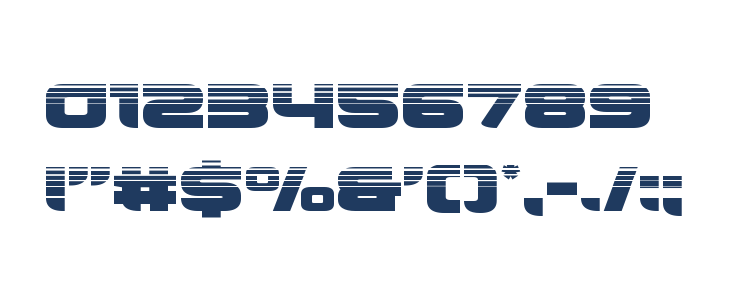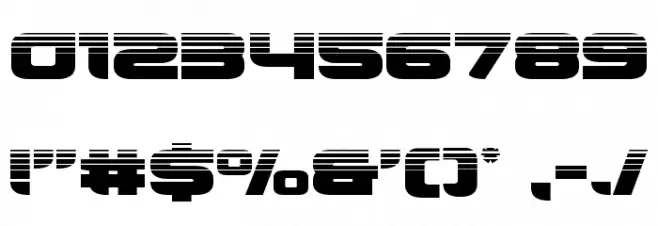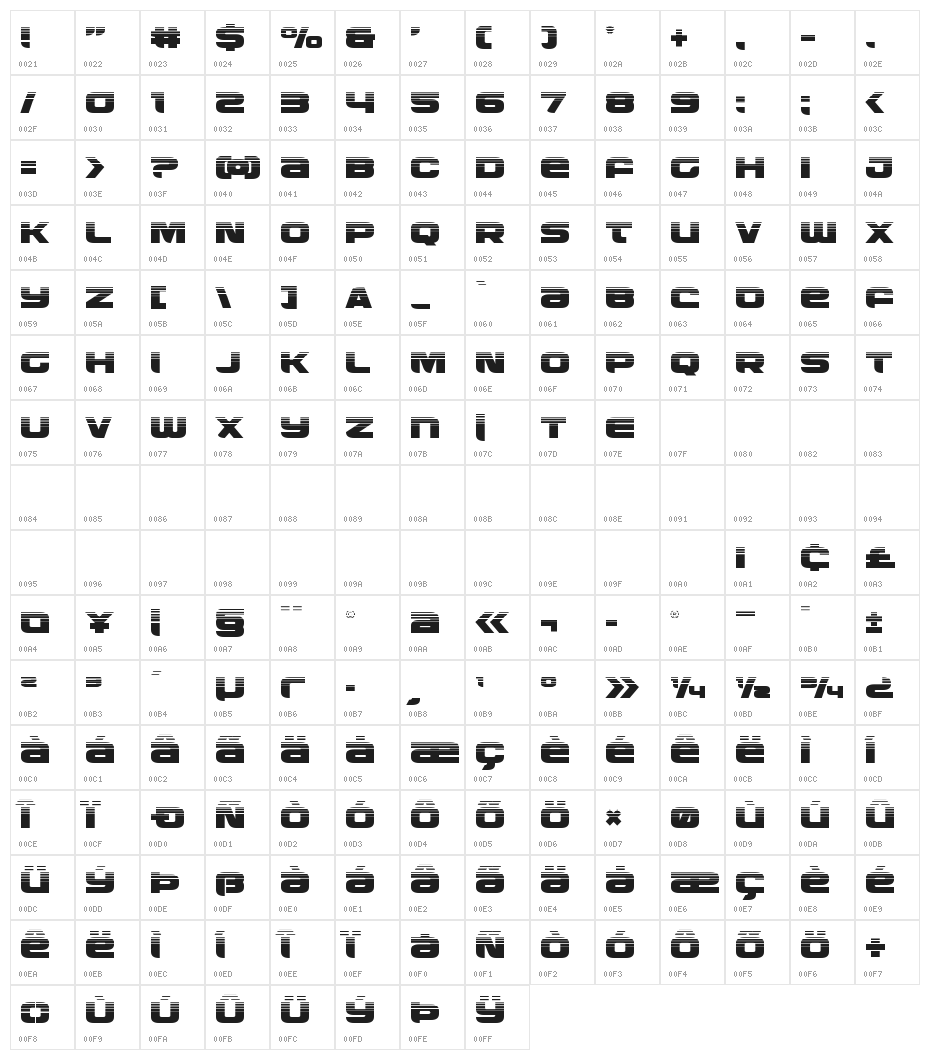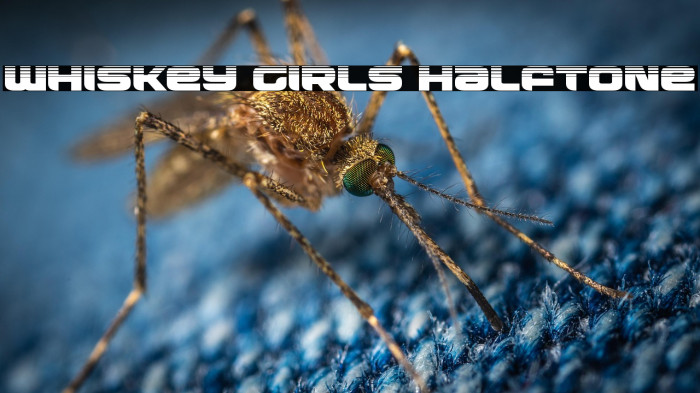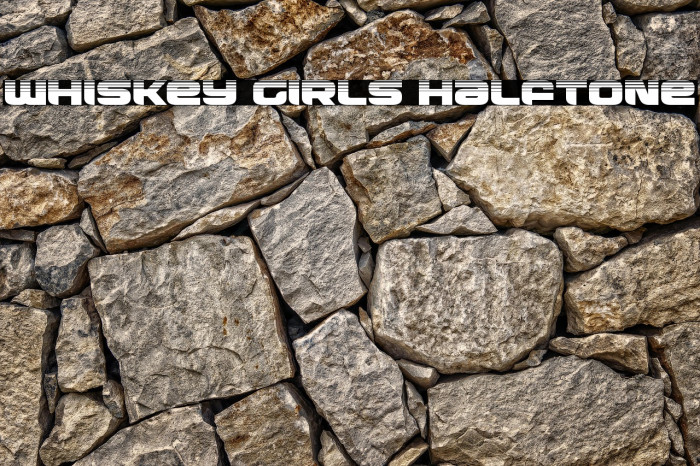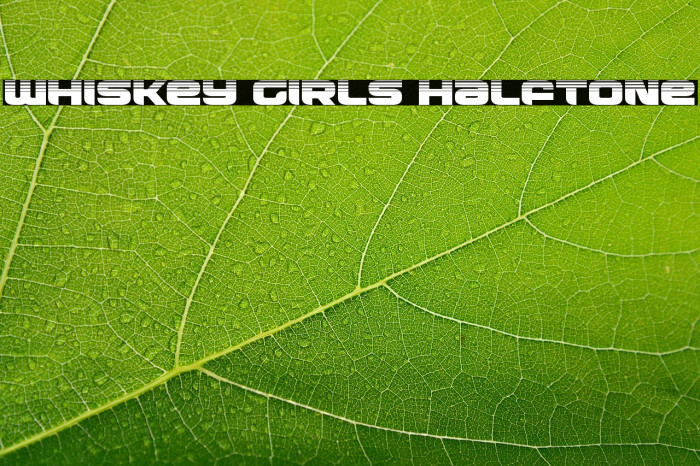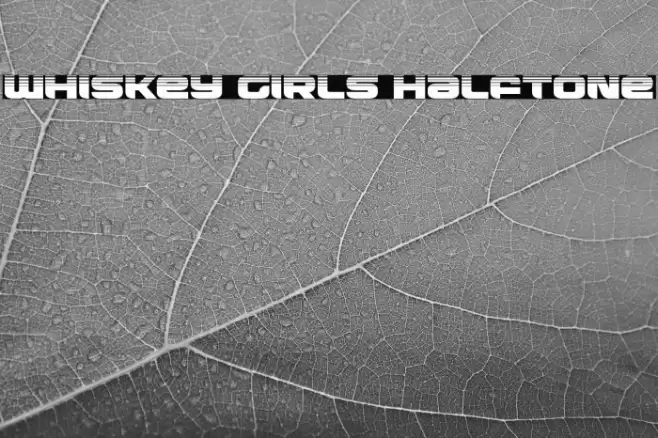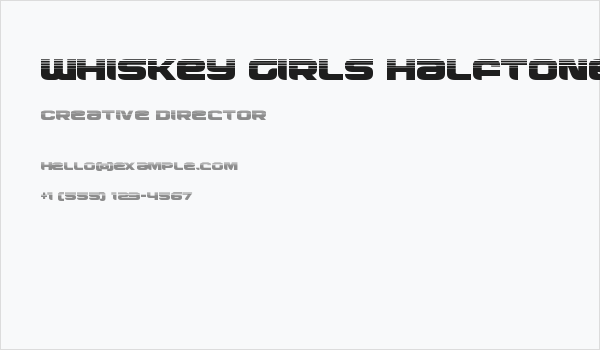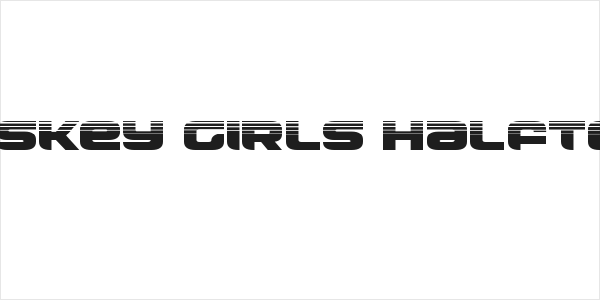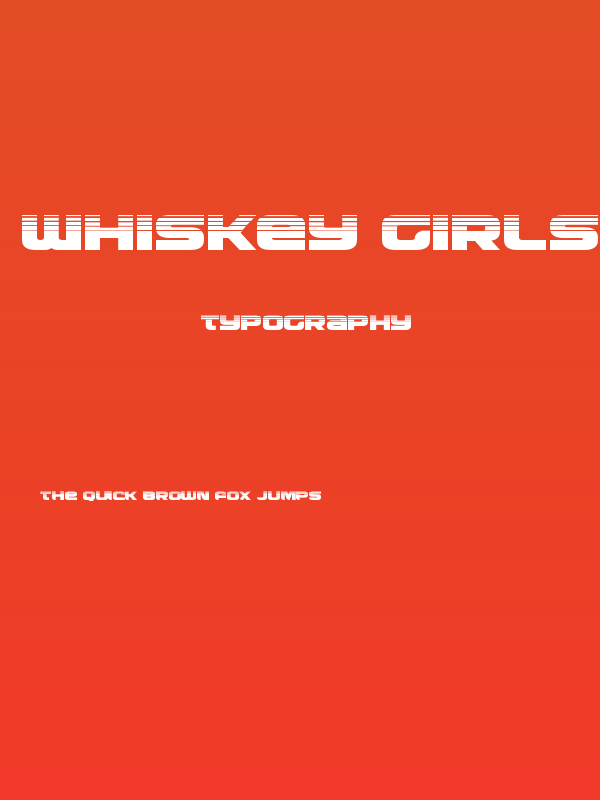
Whiskey Girls Halftone Font
Whiskey Girls Halftone Description
This font features a bold, modern design with a distinctive halftone effect that creates a sense of movement and energy. The characters are wide and robust, with horizontal lines cutting through the upper portion, adding a dynamic and futuristic feel. The uppercase and lowercase letters maintain a consistent style, while the numerals and special characters complement the overall aesthetic. This font's unique style makes it stand out, perfect for projects that require a strong visual impact.
| Proposed Projects | Ideal for branding, posters, album covers, and any design needing a bold, modern touch. |